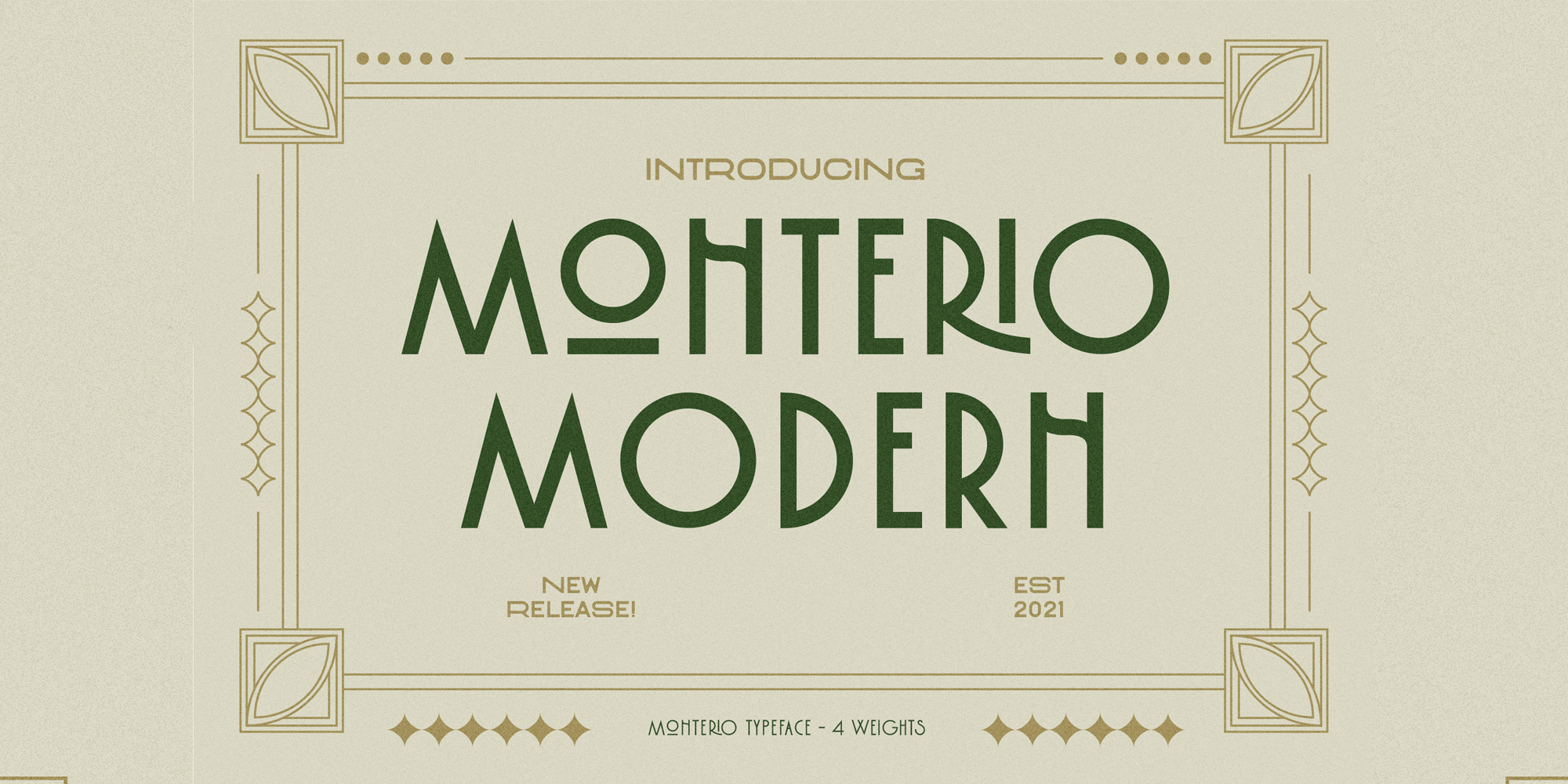
CCS Monterio Font excels in luxury fashion branding, high-end product catalogs, sophisticated corporate identity, upscale retail signage, premium magazine layouts, elegant wedding stationery, boutique hotel communications, exclusive event invitations, fine jewelry packaging, and prestigious brand communications where refined typography conveys exclusivity and contemporary elegance.
What makes CCS Monterio Font exciting is its masterful balance of modern minimalism with classical proportions that creates sophisticated visual hierarchy while maintaining exceptional readability. This font features clean, geometric letterforms with subtle contrast variations, precise spacing, and contemporary refinement that reflects current design trends while honoring timeless typographic principles. The sophisticated styling and versatile character make it ideal for applications requiring both contemporary appeal and enduring elegance.
CCS Monterio Font family includes Thin, Light, Regular, Medium, Bold, and Black weights, each maintaining the font's characteristic contemporary sophistication while offering comprehensive design flexibility for complex brand hierarchies. The family also features condensed and extended variations, plus italic styles that add dynamic movement to the typography. Each variant preserves the font's refined character while providing extensive options for sophisticated design systems.
The CCS Monterio Font Free Download provides designers with access to premium typography that embodies contemporary luxury and design excellence. This font's sophisticated approach makes it perfect for high-end branding, corporate communications, and luxury market applications where credibility and visual distinction are paramount. Its versatility extends to digital interfaces, premium websites, and modern brand communications requiring polished professional appearance.
CCS Monterio Font supports comprehensive character coverage including small caps, oldstyle numerals, advanced punctuation, and extensive international language support that enhance its professional typography capabilities. The font's carefully engineered metrics ensure optimal spacing and alignment across different weights and sizes while maintaining the sophisticated character that defines premium typography. Its robust construction delivers consistent performance across various media and applications.
The font's authoritative presence makes it particularly effective for luxury branding, corporate identity systems, and premium communications where sophistication and reliability are essential for building trust and brand recognition. Whether designing high-end product launches, corporate annual reports, or exclusive brand experiences, CCS Monterio Font delivers contemporary typography that elevates brand perception and communicates professional excellence with sophisticated visual impact.